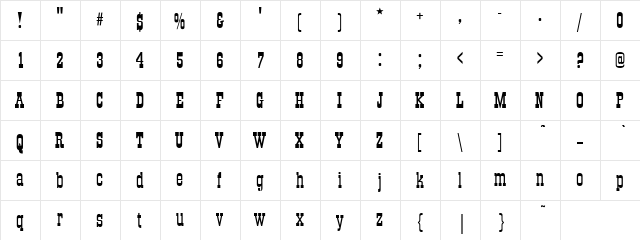
58 Regular Font Preview
58 Regular
Design Context for 58 Typeface
58 takes a measured approach to typography — its balanced proportions and neutral character make it a reliable workhorse for both digital and print work.